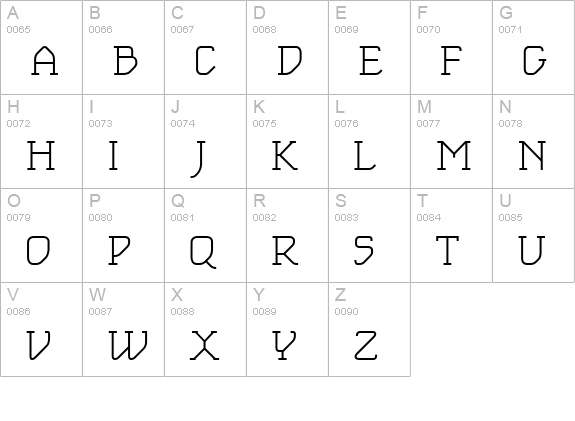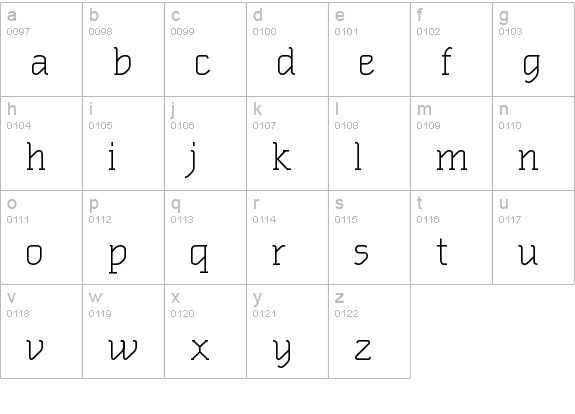
Oblique TextLight is a distinctive, italic variant in the Oblique typeface family \xE2\x80\x94 well suited to design and typography projects.
Oblique TextLight font is a sleek and modern typeface designed to bring a touch of sophistication to your projects. With its unique oblique style and light weight, this font exudes elegance and professionalism. Perfect for adding a contemporary flair to your designs, Oblique TextLight is versatile and easy to read, making it ideal for a wide range of applications. Best of all, Oblique TextLight font is available for free download at FontsMarket.com. Whether you're working on a website, poster, logo, or any other creative project, this font is sure to make a statement. Don't miss out on the opportunity to enhance your designs with the stylish and refined look of Oblique TextLight font. Download it today and take your designs to the next level!